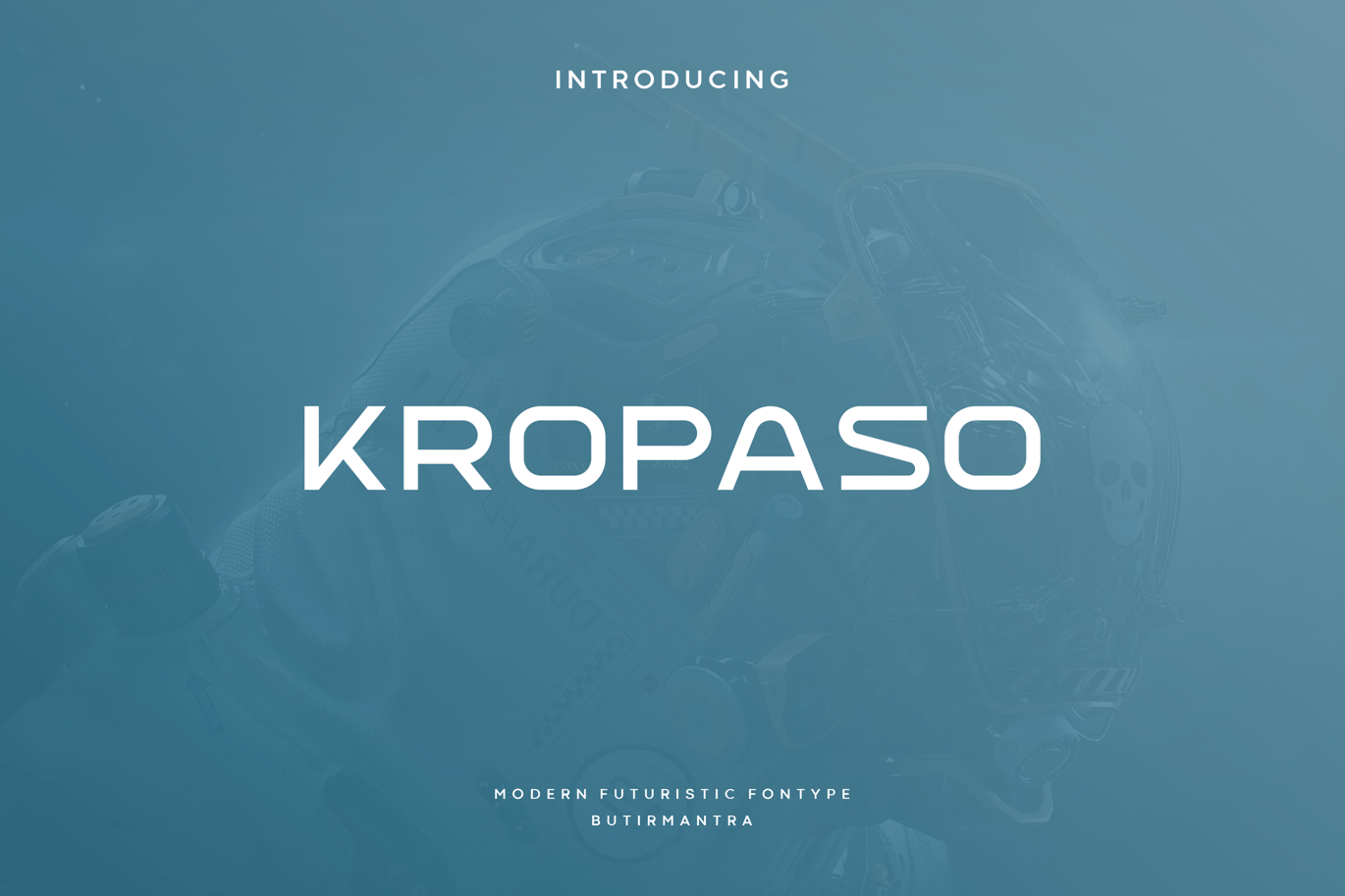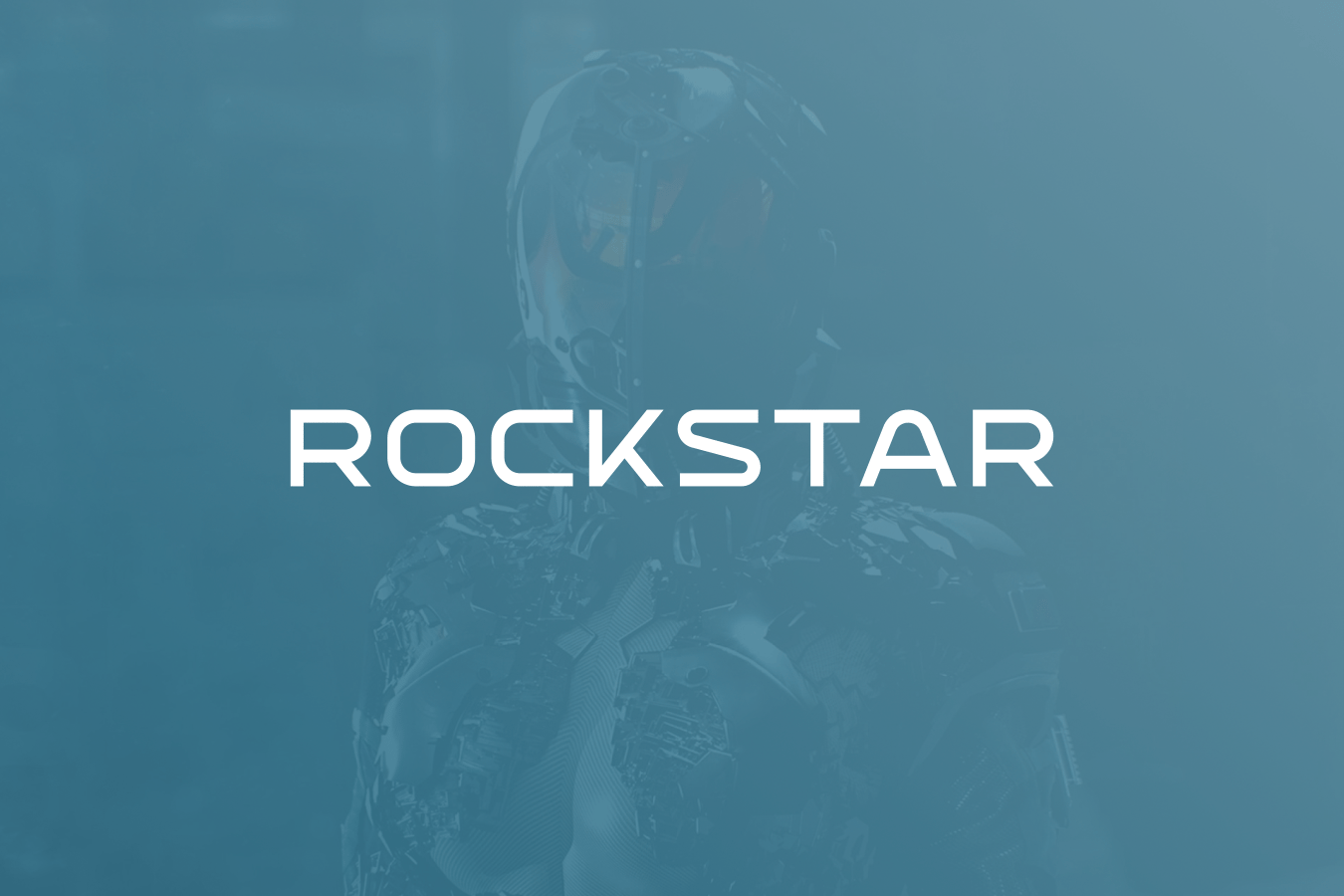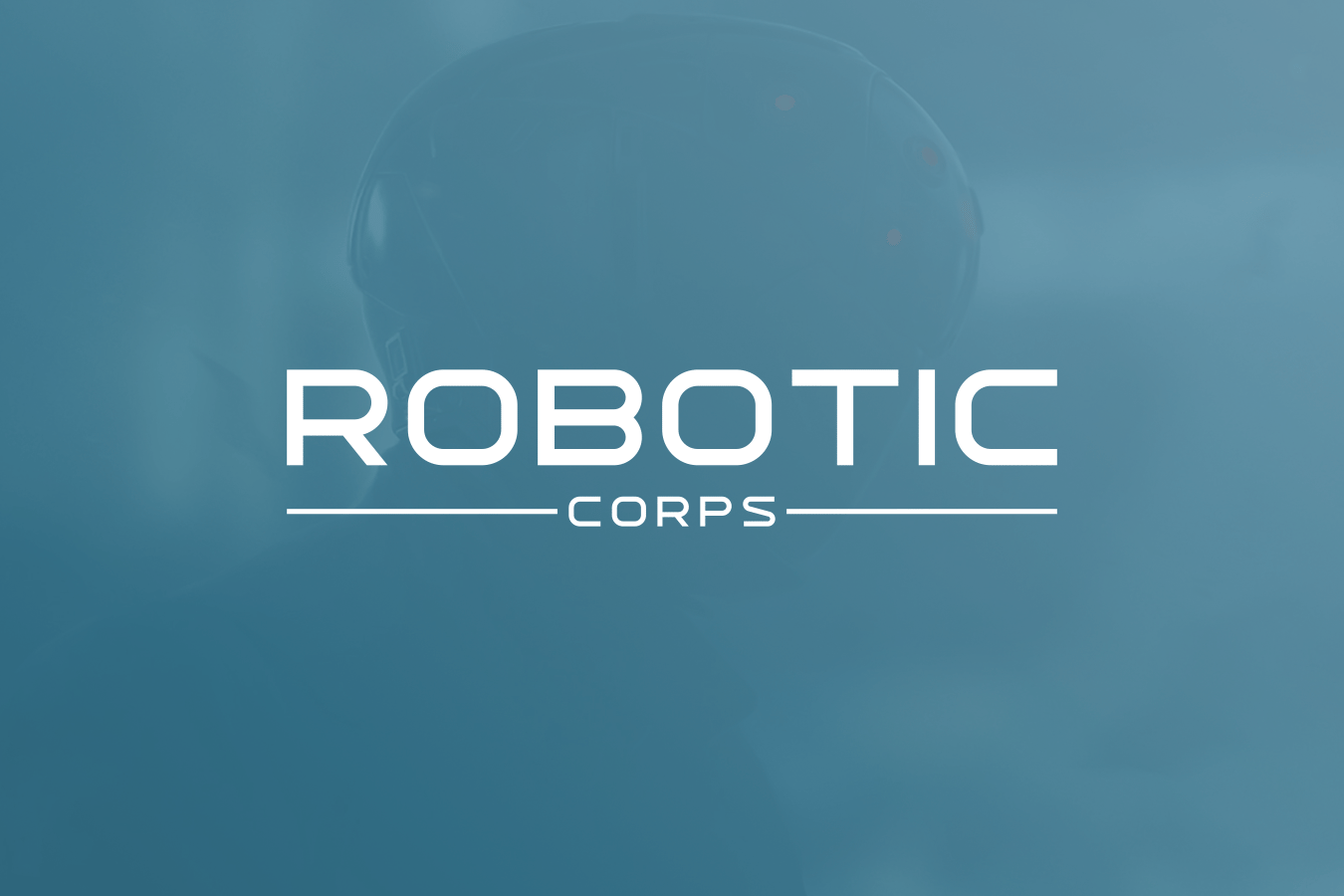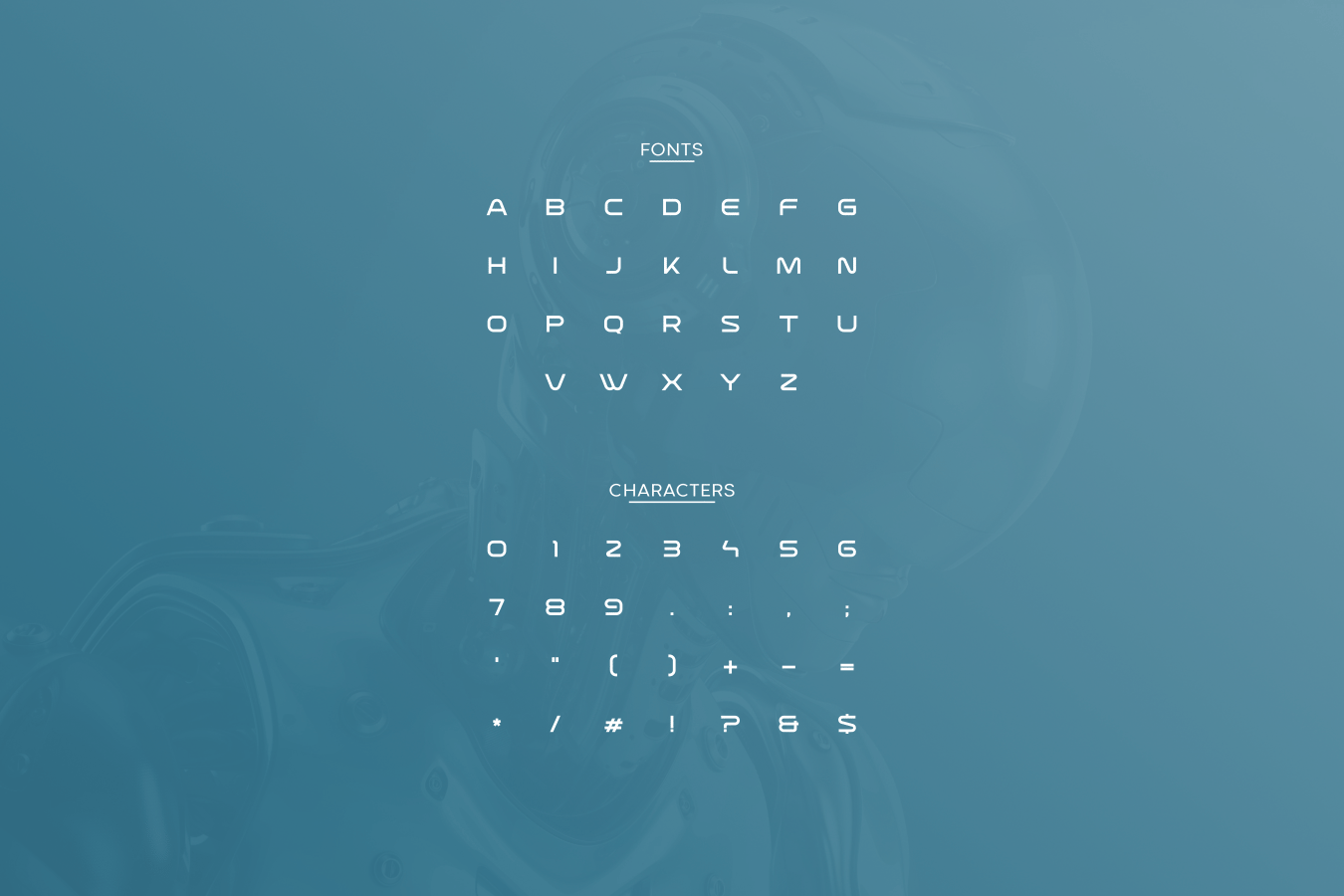
Kropaso – Futuristic Font
Kropaso is an apropos modernist linear sans apt for headline, editorial, branding, packaging, printed materials and typographic applications. Comes with an elegant style in all caps font, a futuristic touch to the design makes it look more timeless. Take it for branding designs, logos or any needs that require a modern and sophisticated theme.